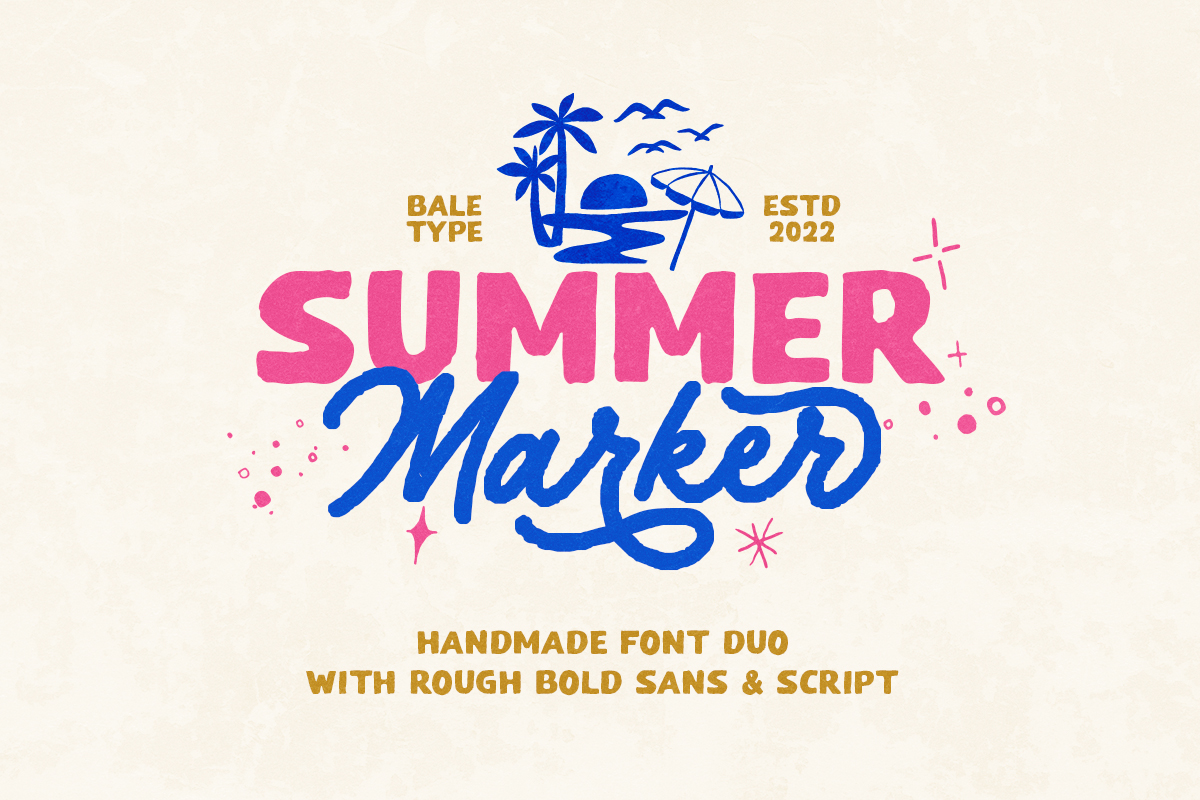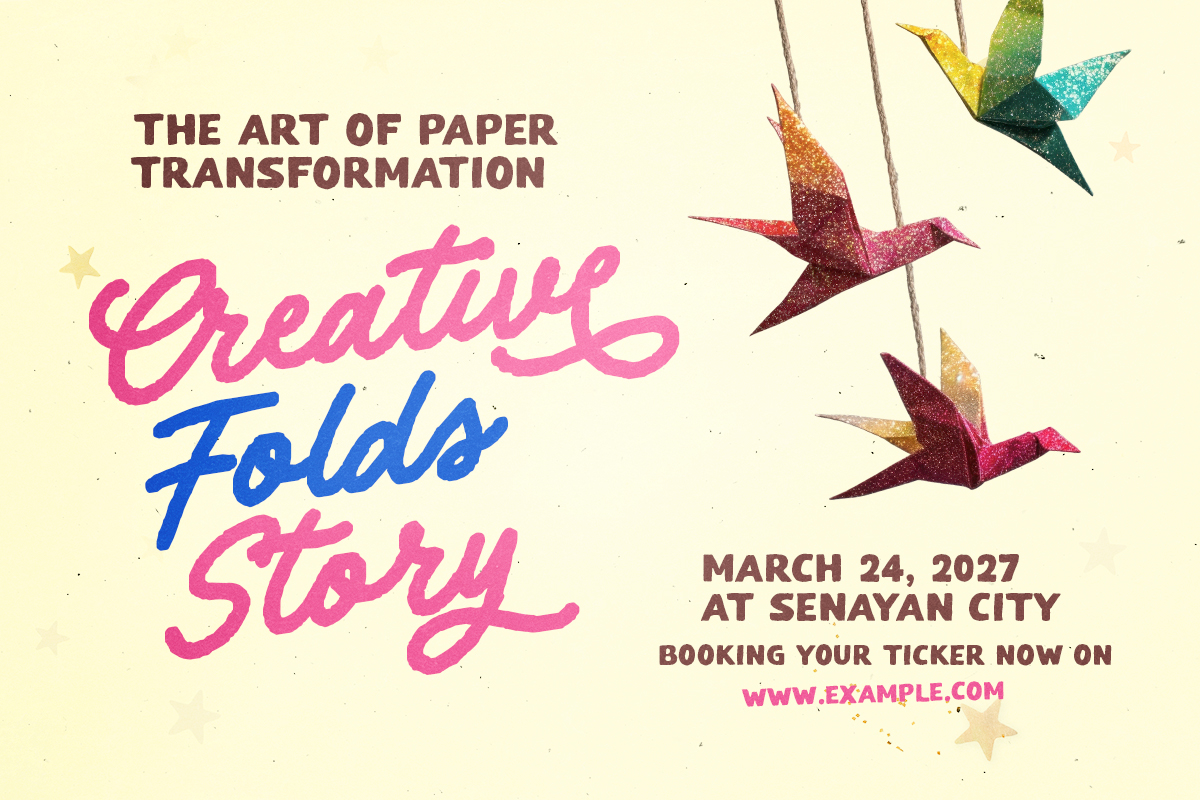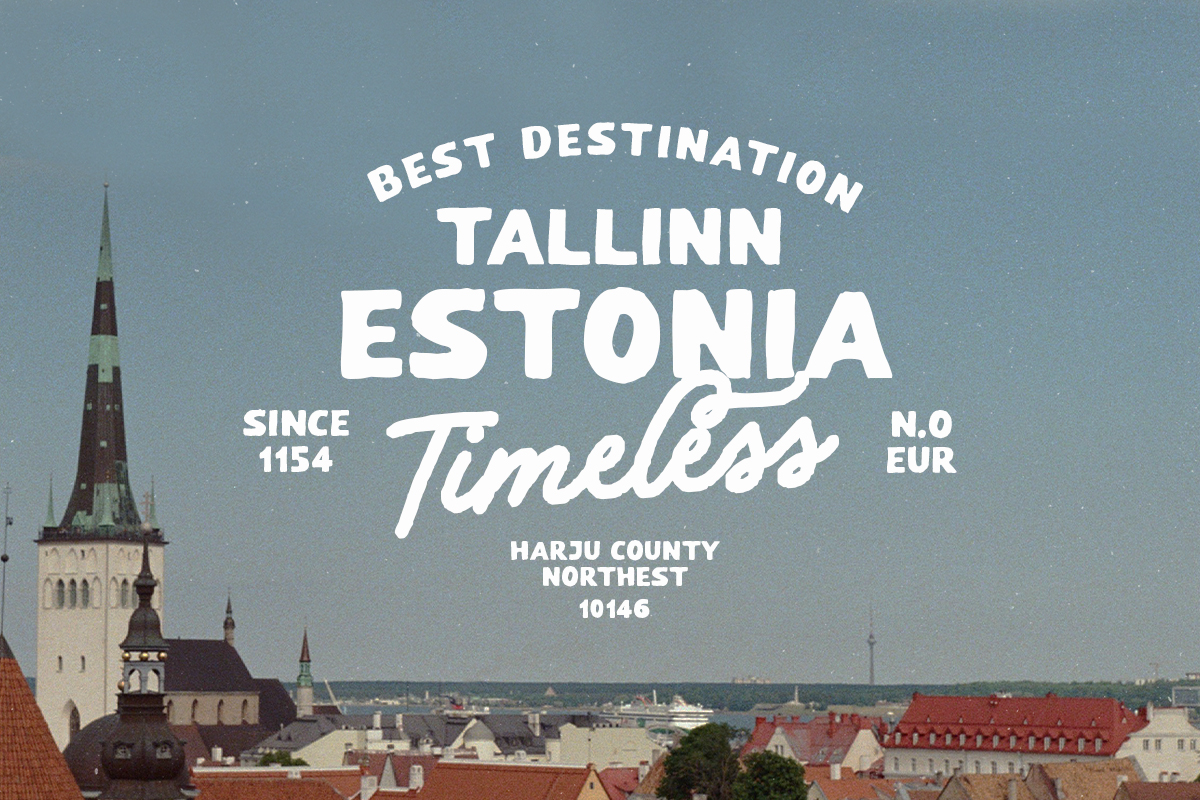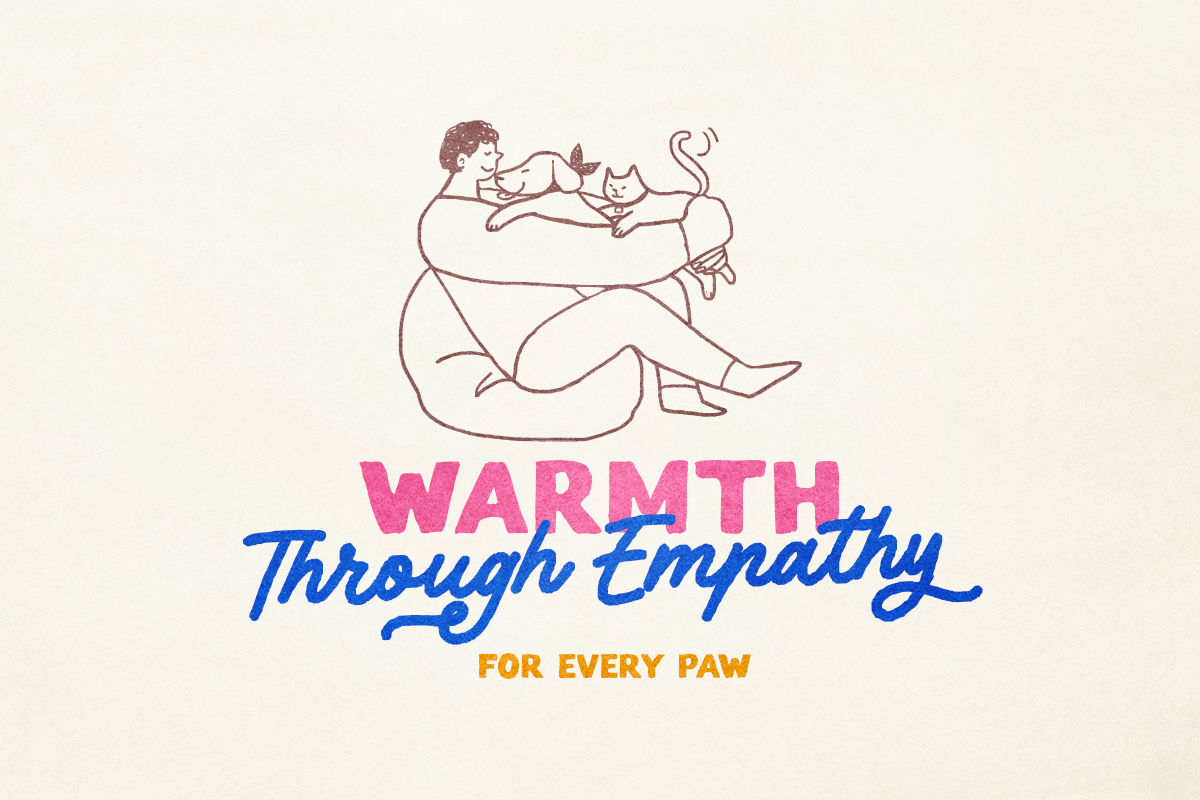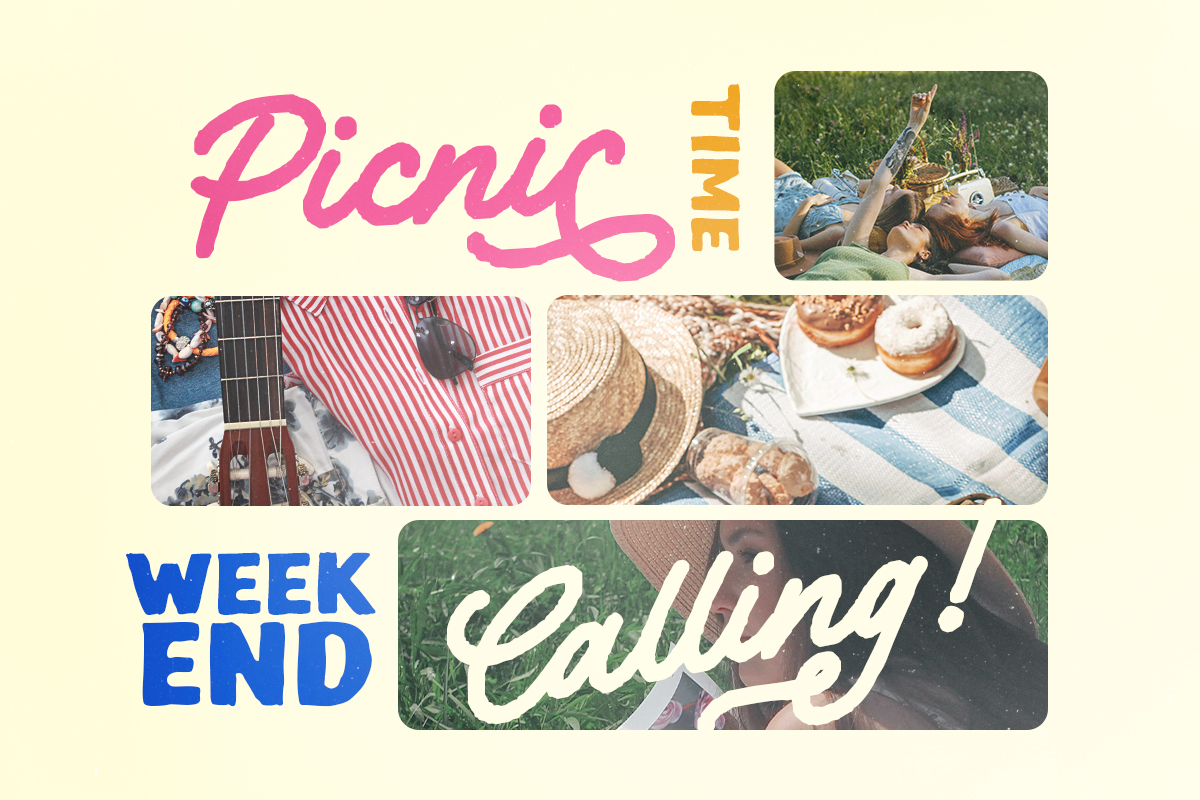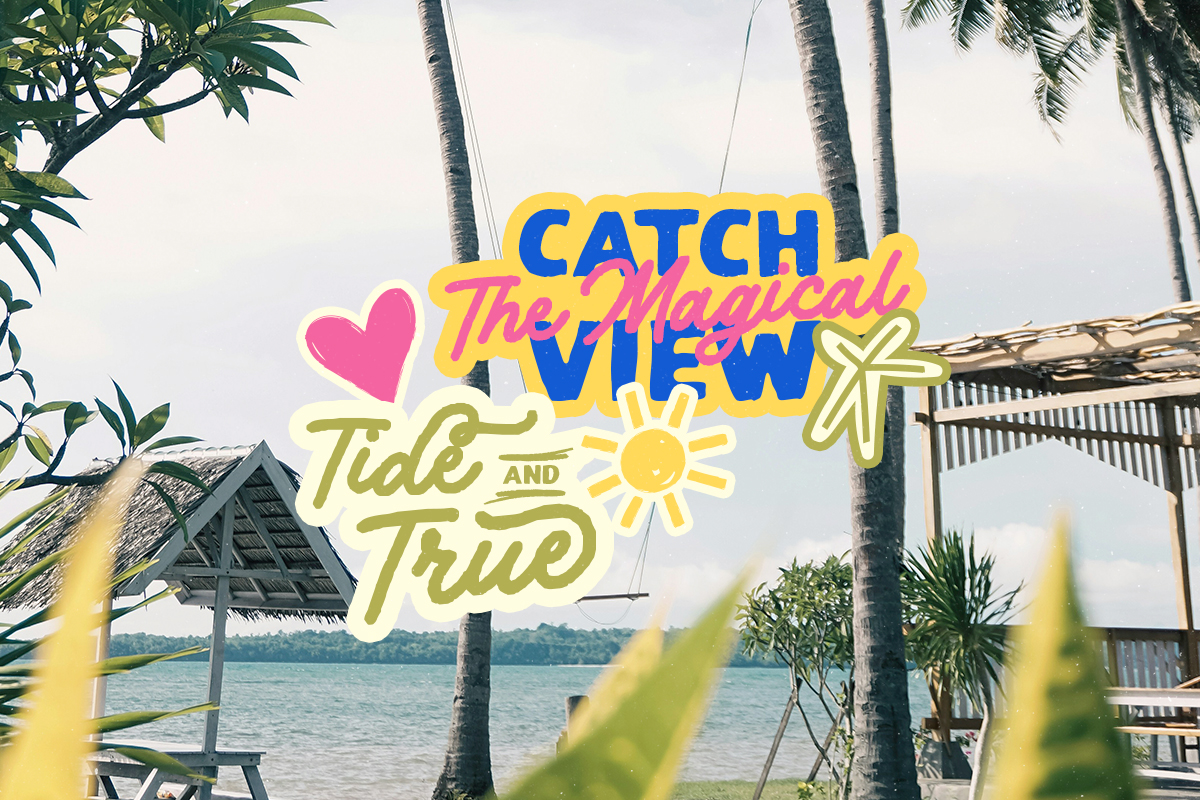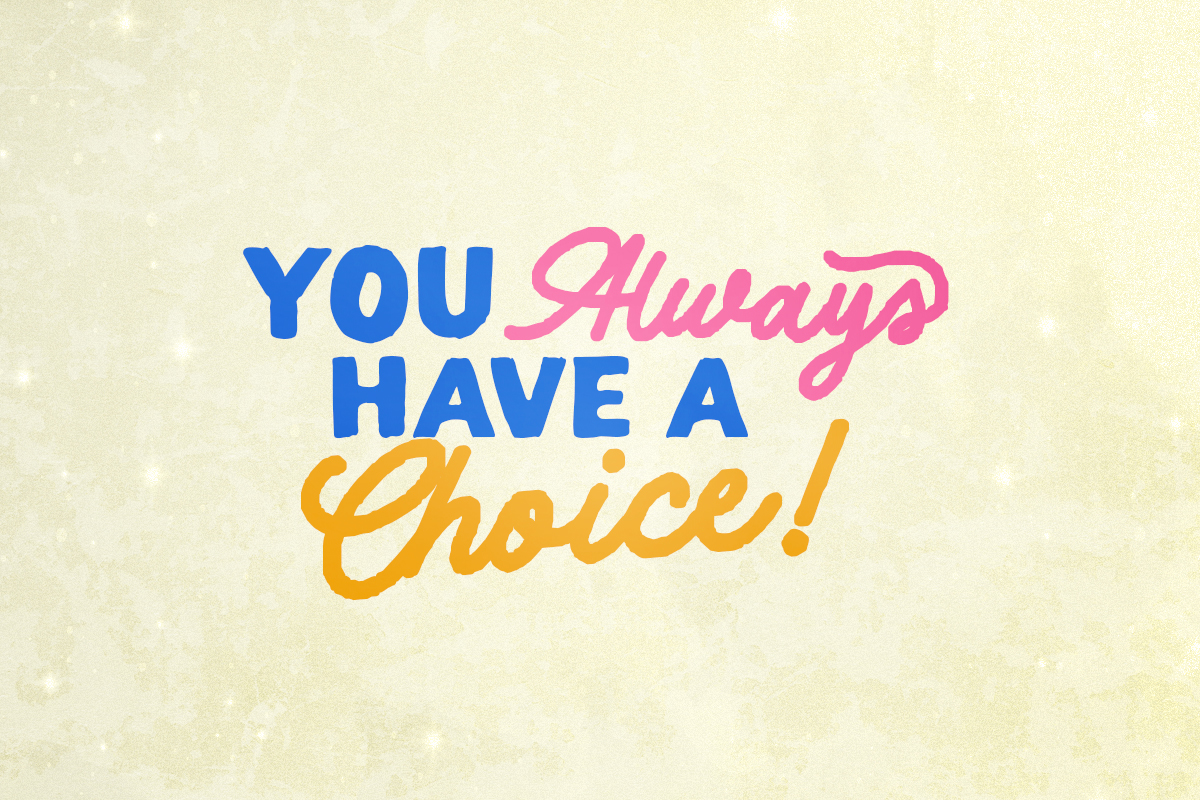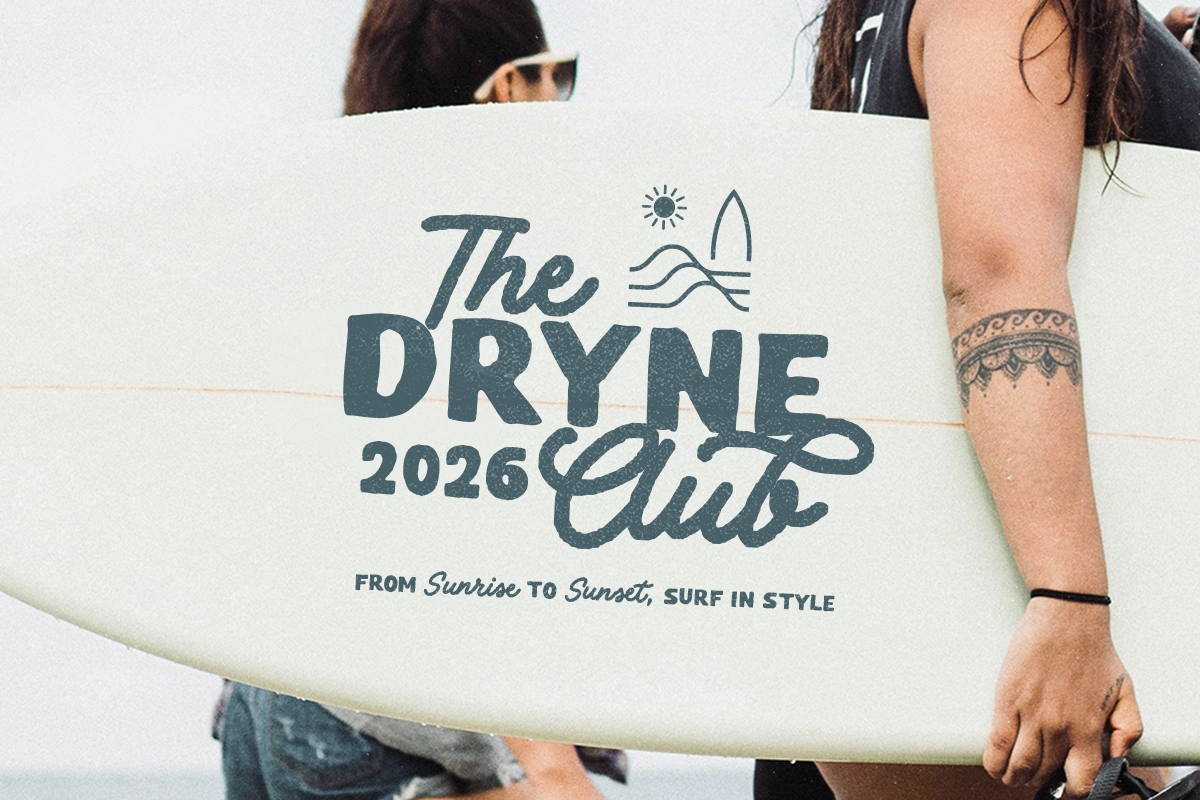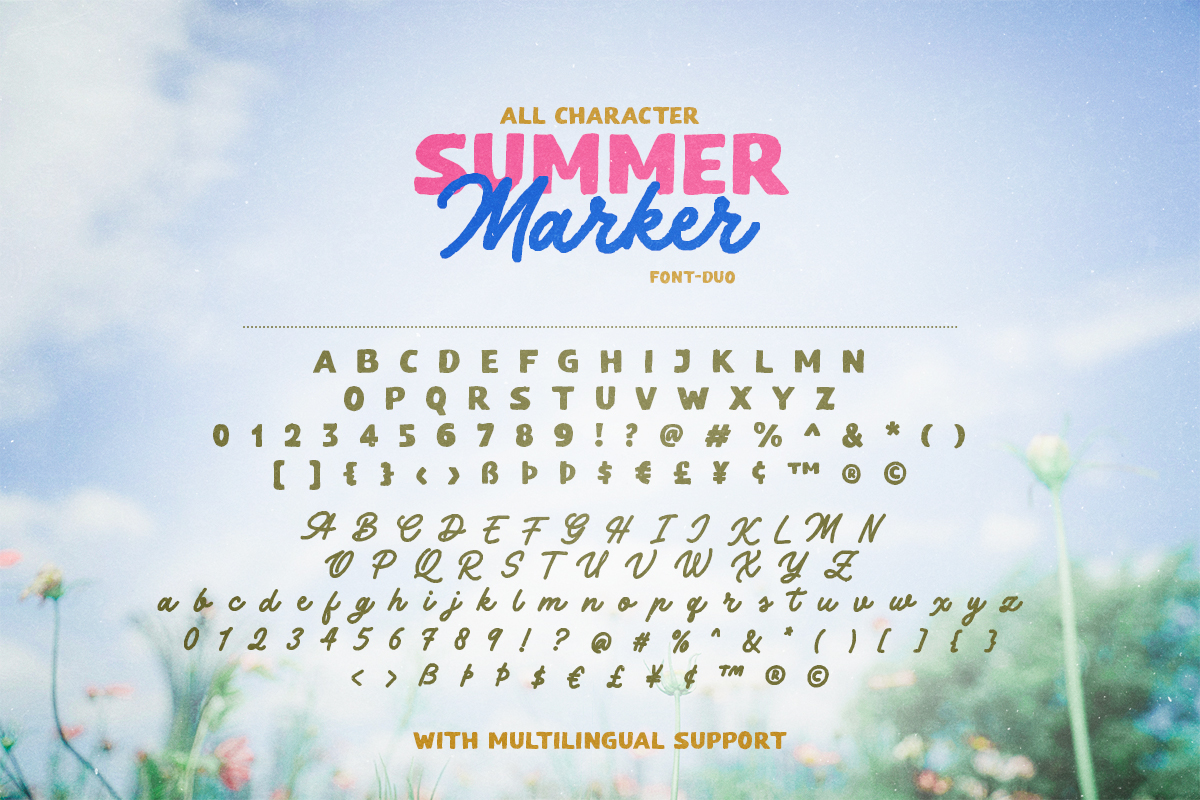
Summer Marker is a handmade font duo with rough and organic looks. Including bold sans and monoline script, you can make any project that need hand crafted vibes. You can use this font for any purposes, such as branding, logotype, quotes, sticker, or any designs that require retro looks. This font duo also support multi language.
Summer Marker – Handmade Font Duo
Summer Marker is a handmade font duo with rough and organic looks.